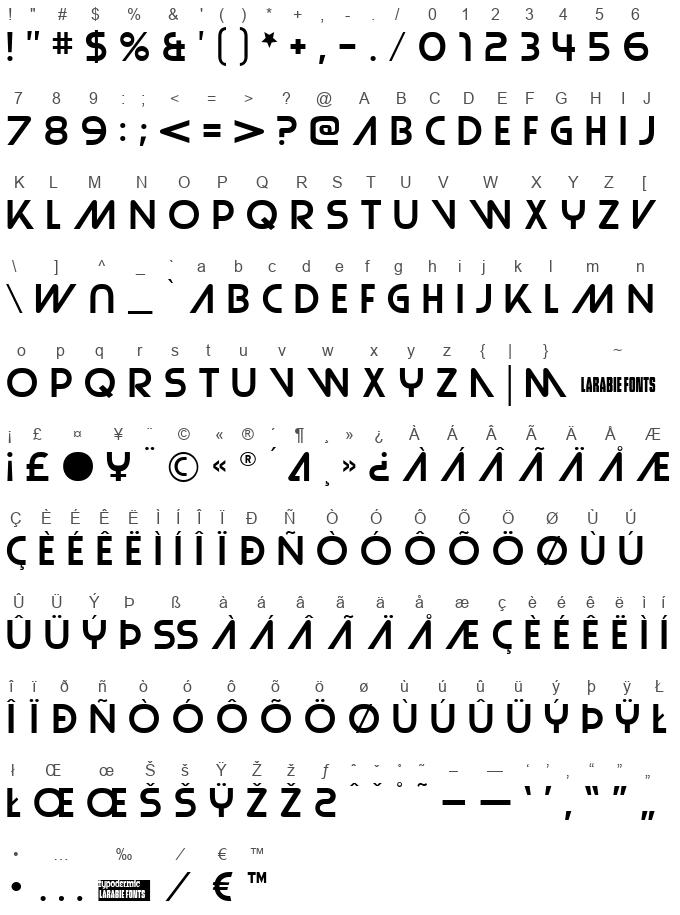
The Strasua font is a bold and commanding typeface created by the renowned font designer, Ray Larabie. This typeface stands out for its industrial and geometric design, embodying a sense of modernity and efficiency. Strasua's character shapes are characterized by strong lines and sharp angles, giving it a distinctive architectural feel that is both futuristic and grounded.
Strasua's letters are crafted with precision, ensuring that each character maintains a uniform and cohesive appearance. The font's boldness makes it particularly effective for headlines, logos, and any application where a statement needs to be made with clarity and impact. Despite its robust and assertive characteristics, Strasua retains a level of readability that is sometimes challenging to achieve in fonts of such a pronounced style.
The versatility of the Strasua font lies in its ability to adapt to various design contexts, from tech startups to industrial companies, and anywhere a sense of strength and innovation is desired. Its geometric foundation allows it to pair well with other design elements, making it a favorite among graphic designers and creative professionals.
Ray Larabie's creation of Strasua reflects his ability to encapsulate contemporary design trends while producing a typeface that is both functional and expressive. This font is not just a collection of characters; it is an artistic statement that enhances the visual communication of any text it is applied to. Whether used for digital media or print, Strasua adds a layer of sophistication and edge to any project.
Strasua